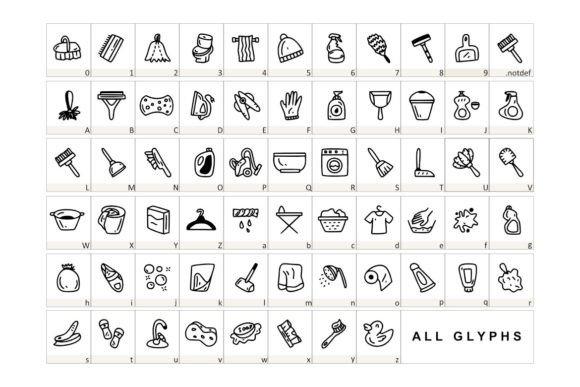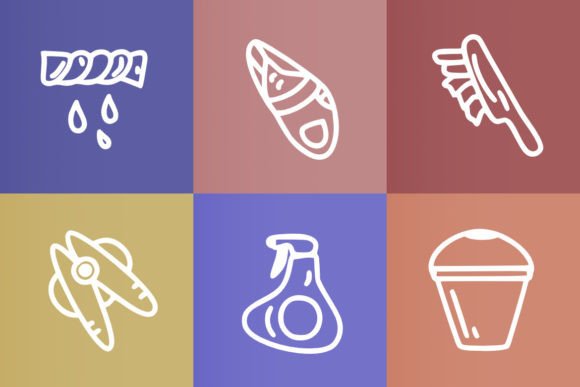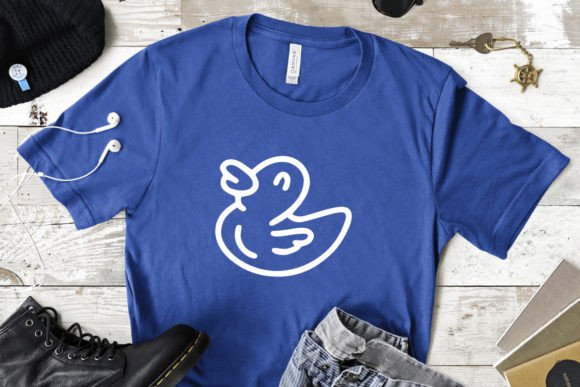
Introducing Cleanliness Font: The Fun and Versatile Dingbats Font for Creative Projects
Are you a designer, crafter, or DIY enthusiast looking for a unique and functional font to elevate your creative projects? Look no further than Cleanliness Font, a delightful dingbats font that’s perfect for a wide range of applications. From stickers and posters to t-shirts, cards, and apparel graphics, Cleanliness Font is the ideal choice for adding a touch of personality and style to your designs.
What is Cleanliness Font?
Cleanliness Font is a carefully crafted dingbats font that features a collection of fun and useful icons, symbols, and graphics. The font is designed to be highly versatile, making it suitable for various projects, including:
- Stickers and labels
- T-shirts and apparel graphics
- Cards and invitations
Why Choose Cleanliness Font?
So, what sets Cleanliness Font apart from other dingbats fonts? Here are just a few reasons why designers and crafters love this font:
- Unique and Fun Designs: Cleanliness Font features a wide range of unique and playful icons, symbols, and graphics that will add a touch of personality to your designs.
- Highly Versatile: The font is perfect for various projects, from small stickers to large posters, and can be used for both personal and commercial purposes.
- Easy to Use: Cleanliness Font is a dingbats font, which means you can use it just like any other font in your favorite design software.
- Scalable: The font is designed to be scalable, ensuring that your designs look great in any size.
To get the most out of Cleanliness Font, here are some tips and inspiration to keep in mind:
- Mix and Match: Combine different icons, symbols, and graphics to create unique and eye-catching designs.
- Experiment with Colors: Try out different colors and color schemes to add depth and personality to your designs.
- Play with Size: Scale up or down to create visual interest and hierarchy in your designs.
Cleanliness Font is a fun and versatile dingbats font that’s perfect for designers, crafters, and DIY enthusiasts. With its unique and playful designs, high versatility, and ease of use, this font is sure to become a favorite in your creative toolkit. So why wait? Download Cleanliness Font today and start creating amazing projects that showcase your personality and style!